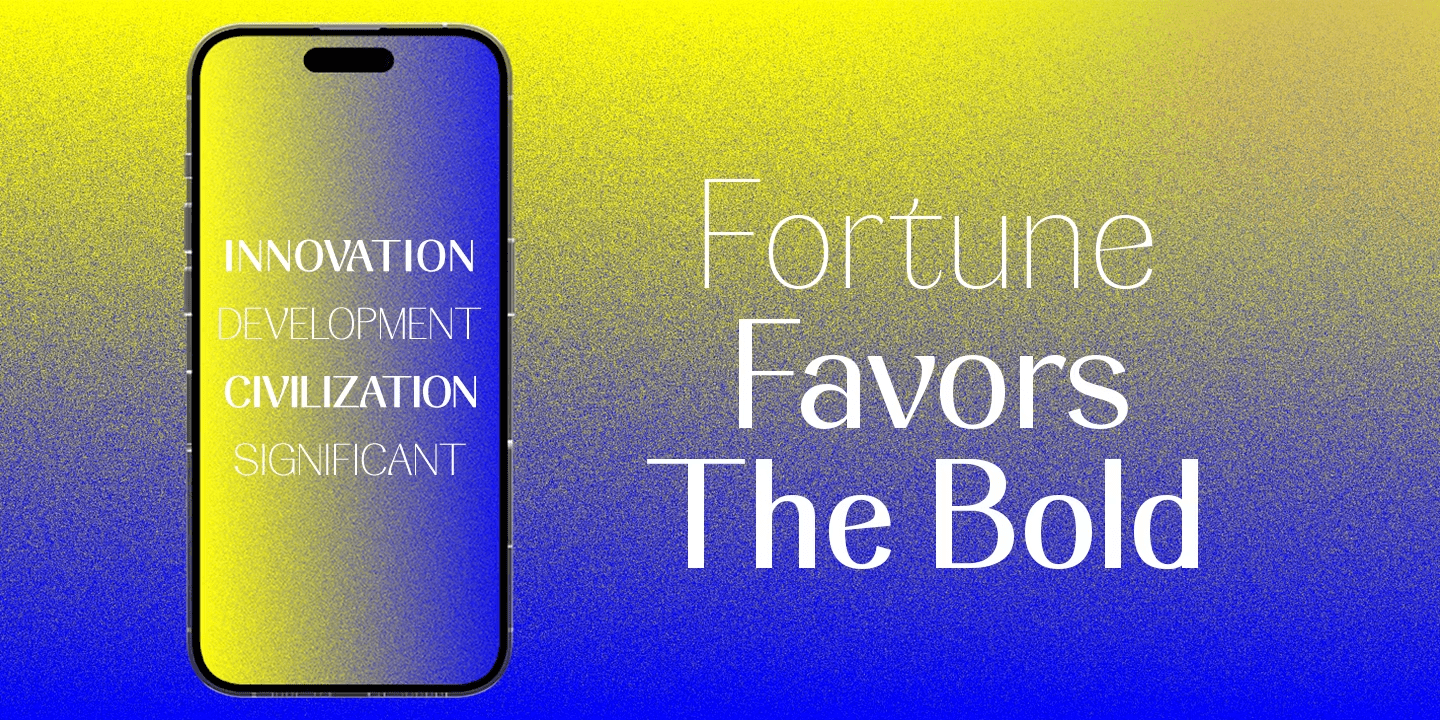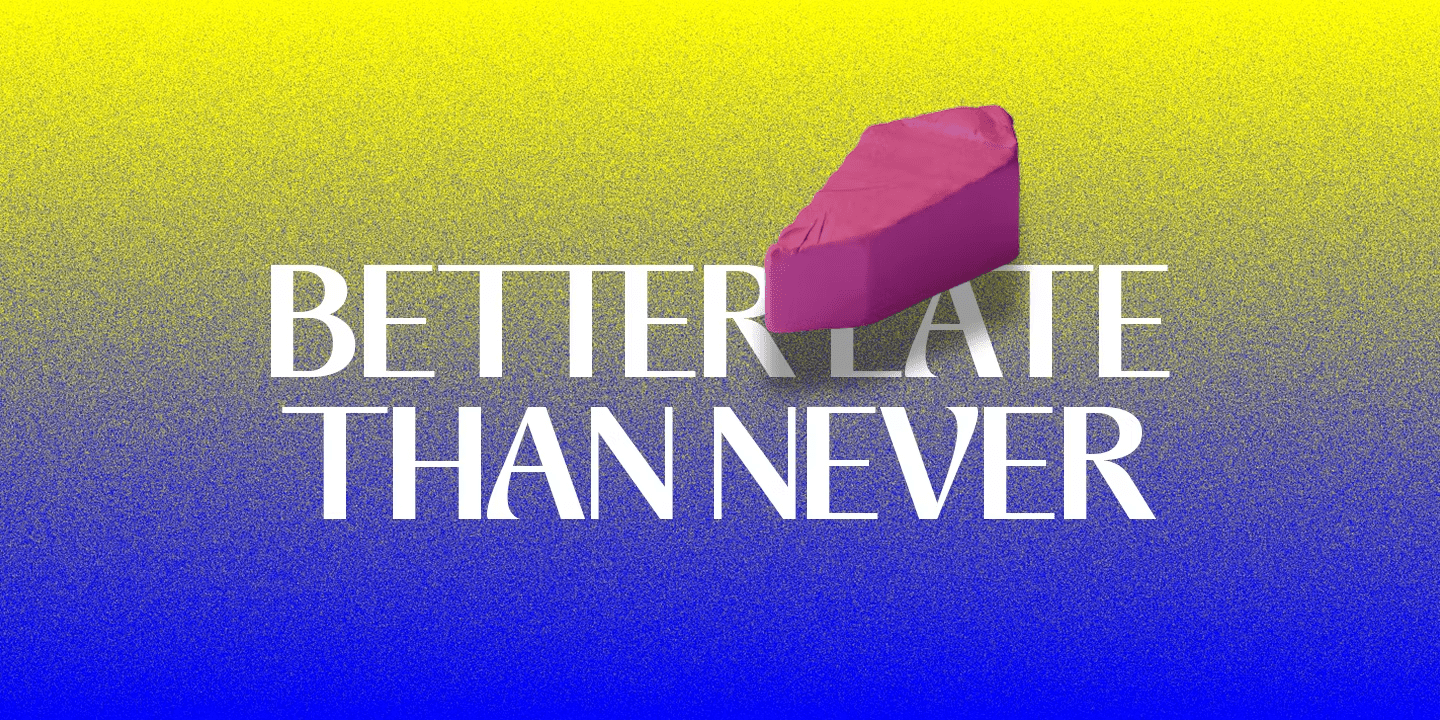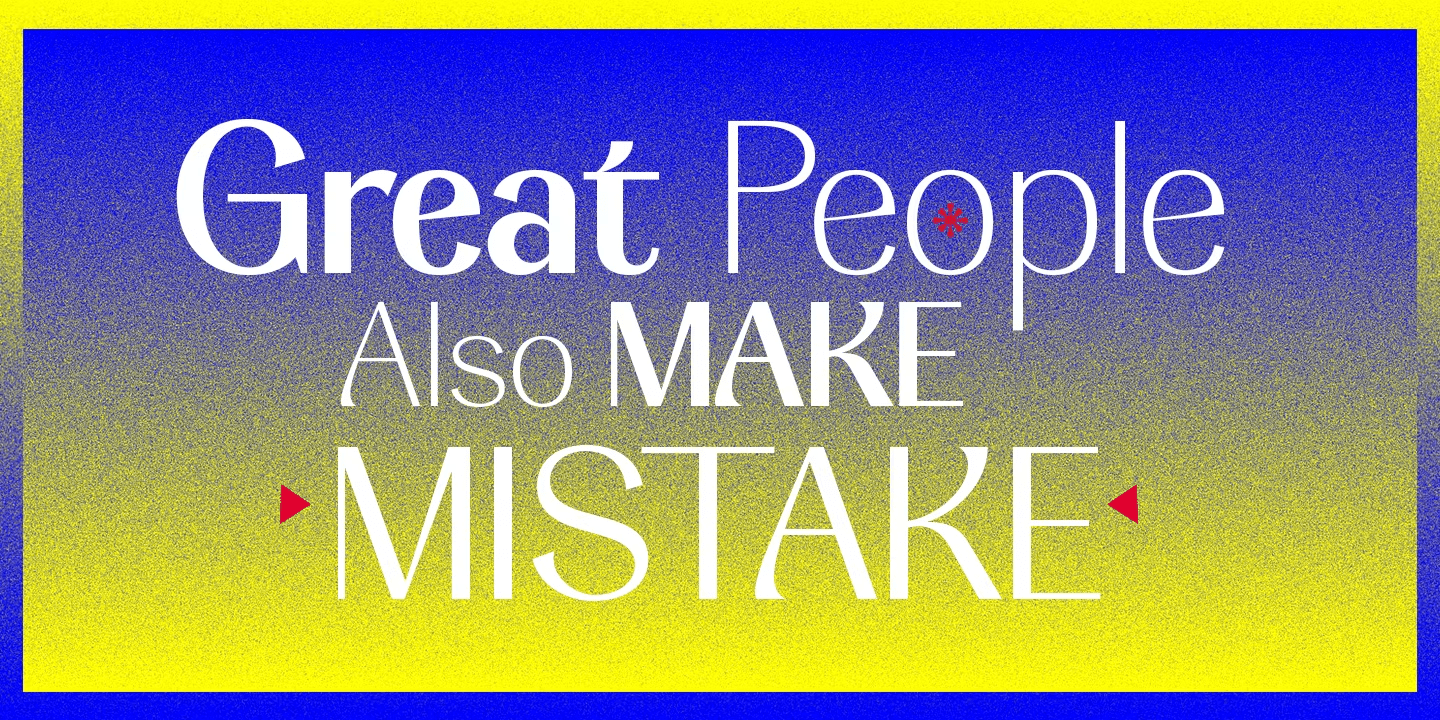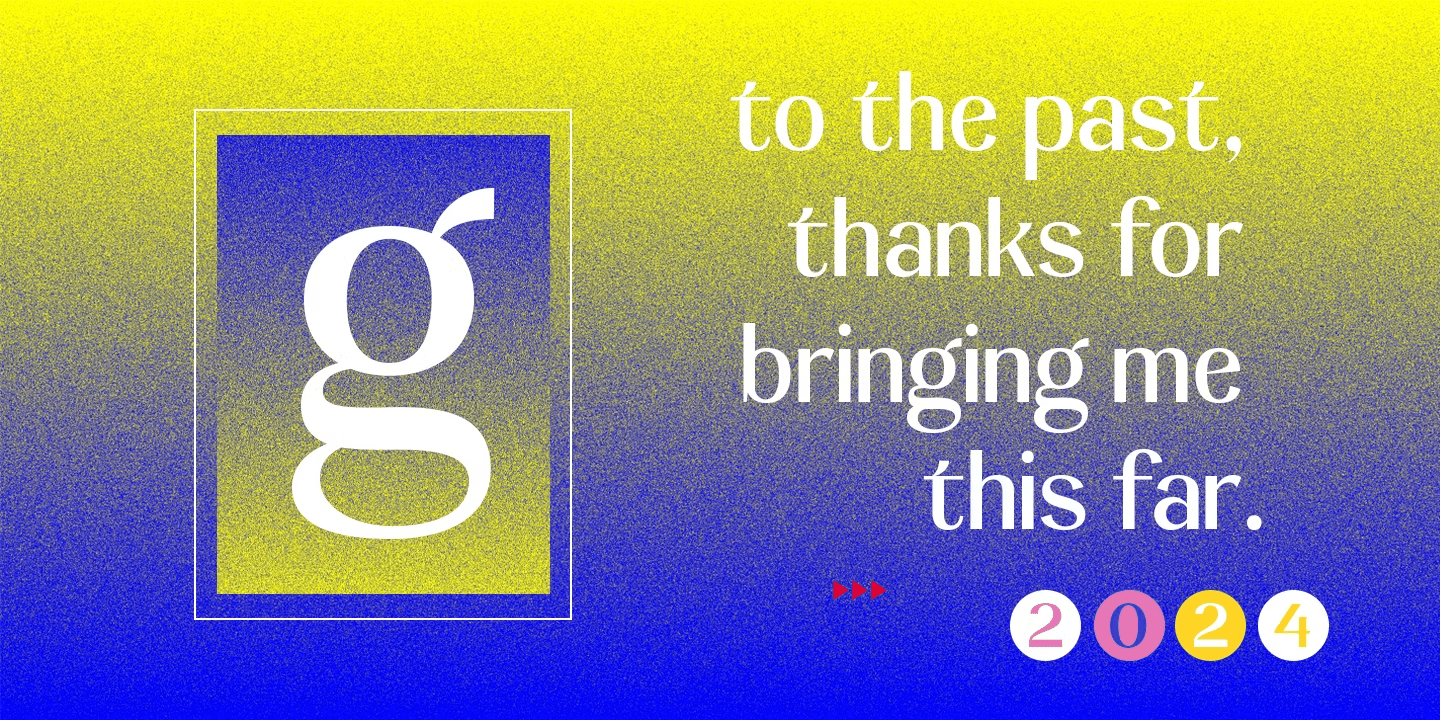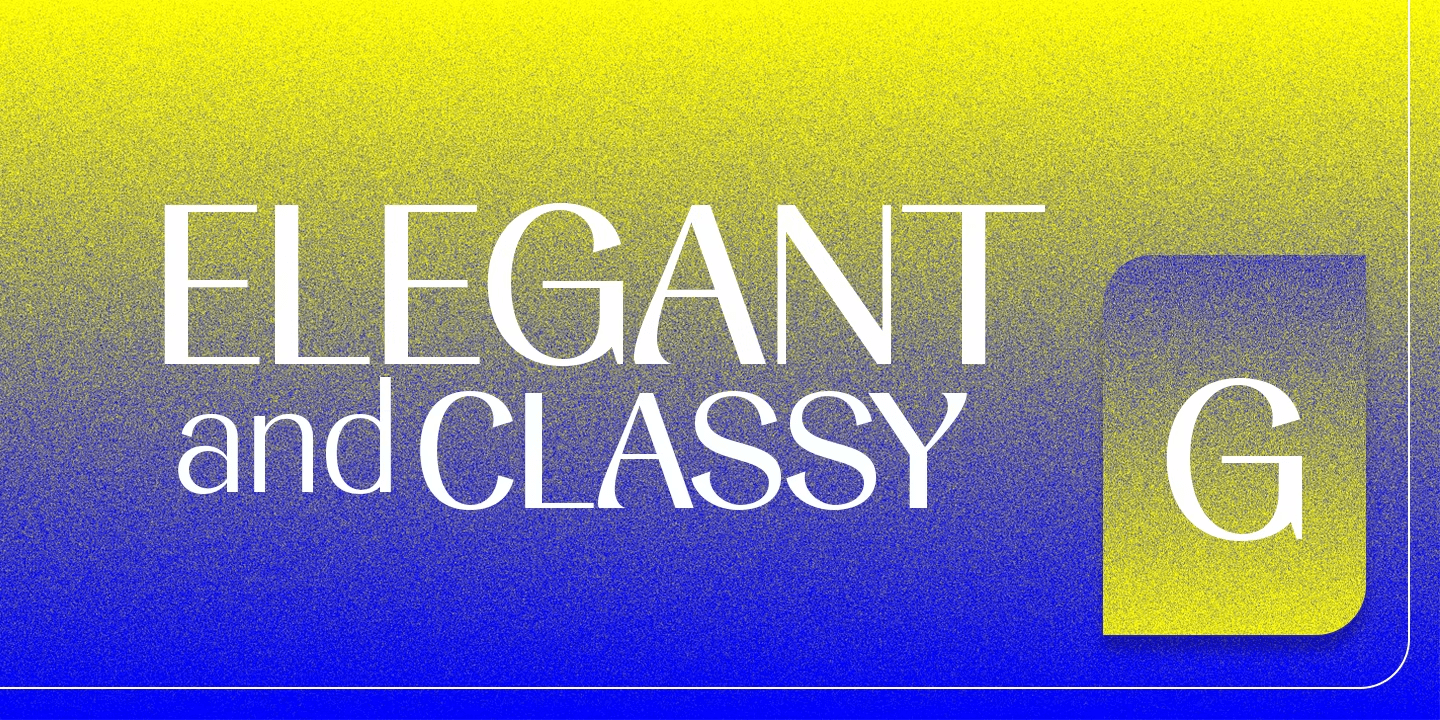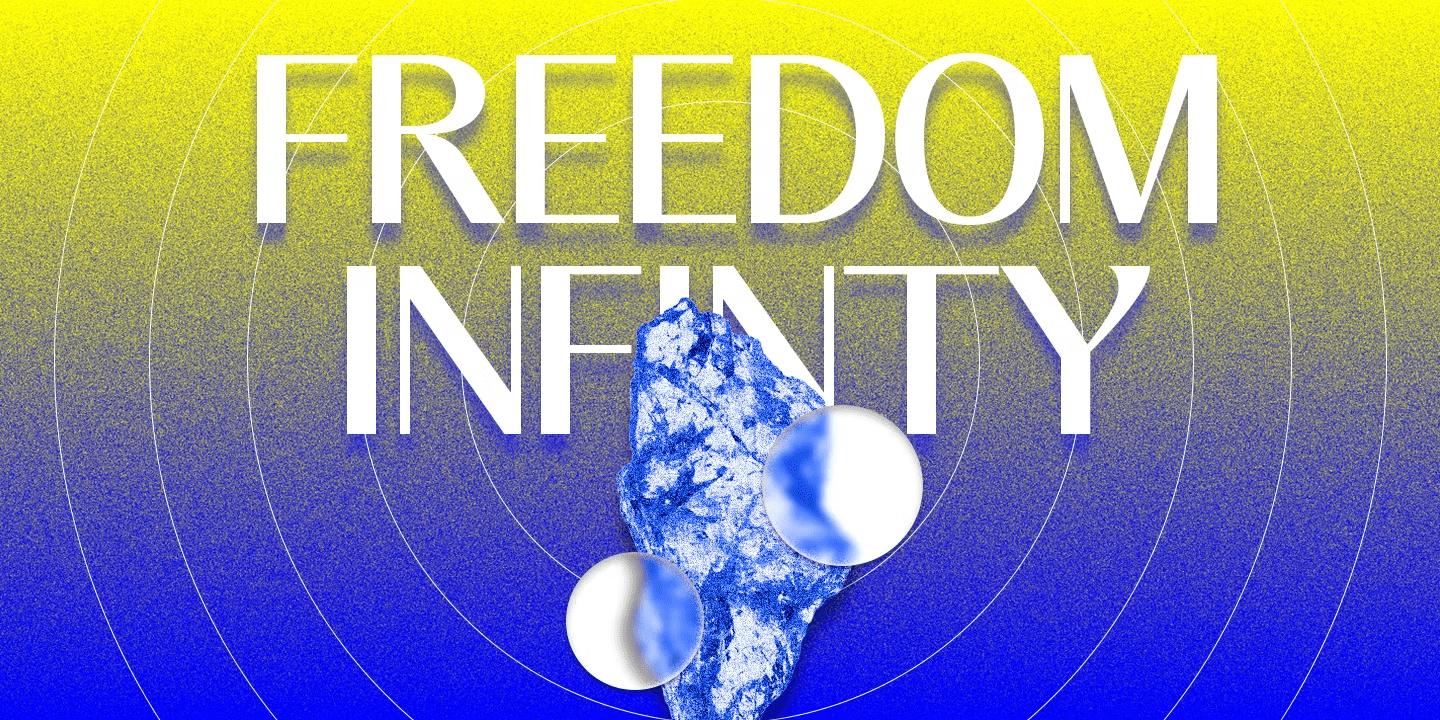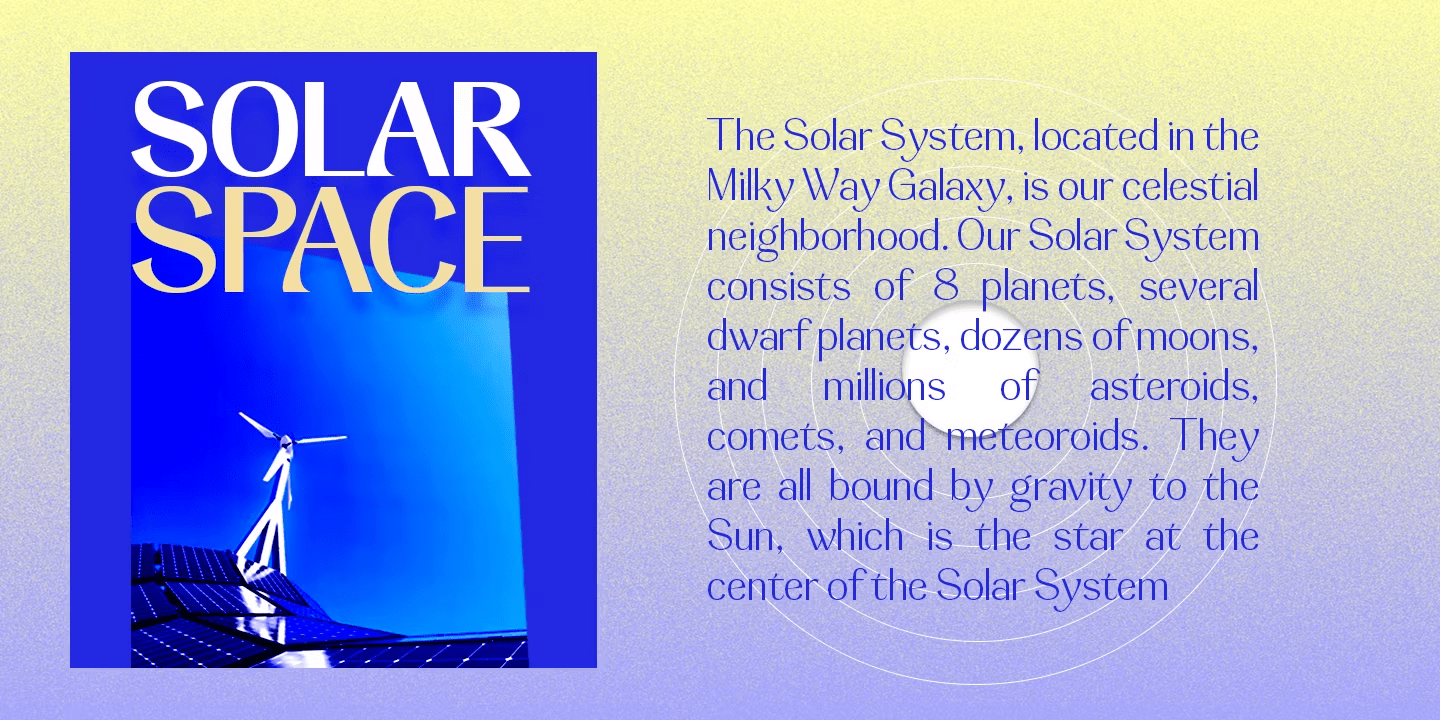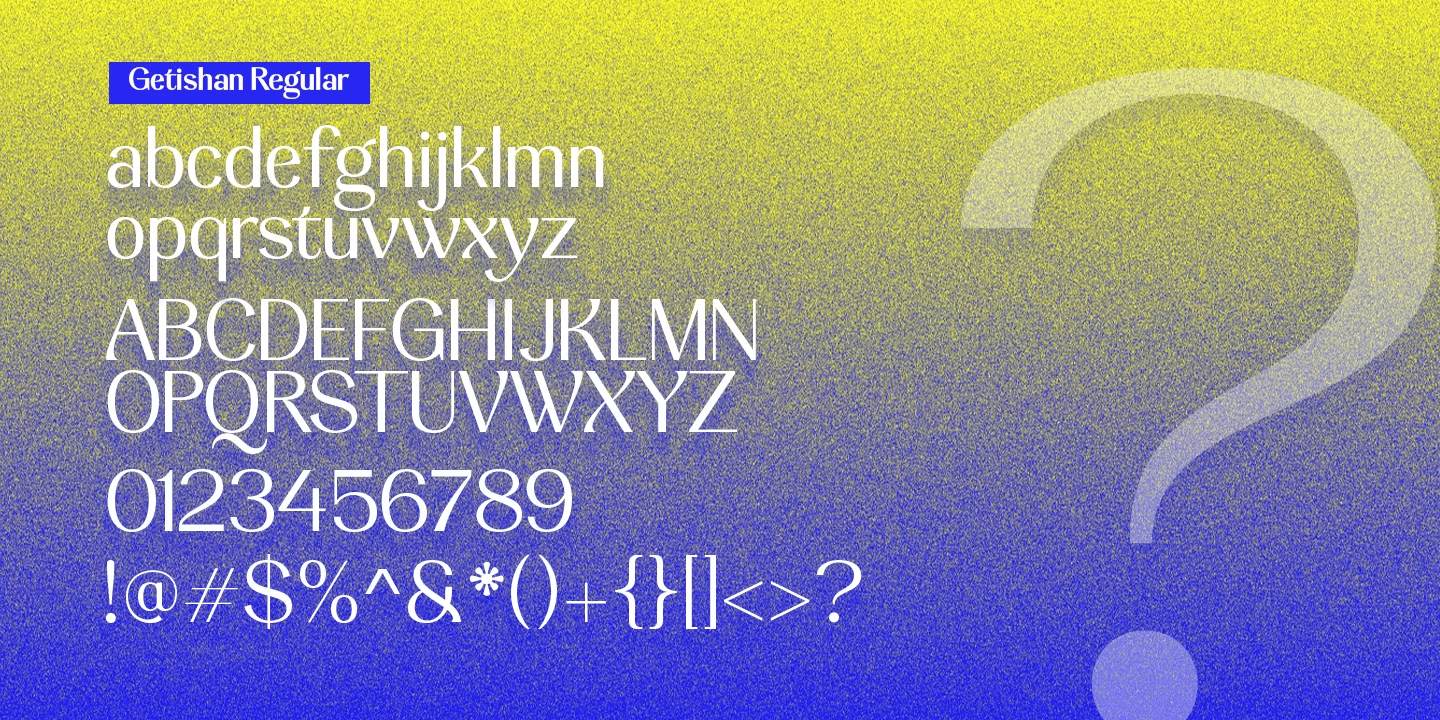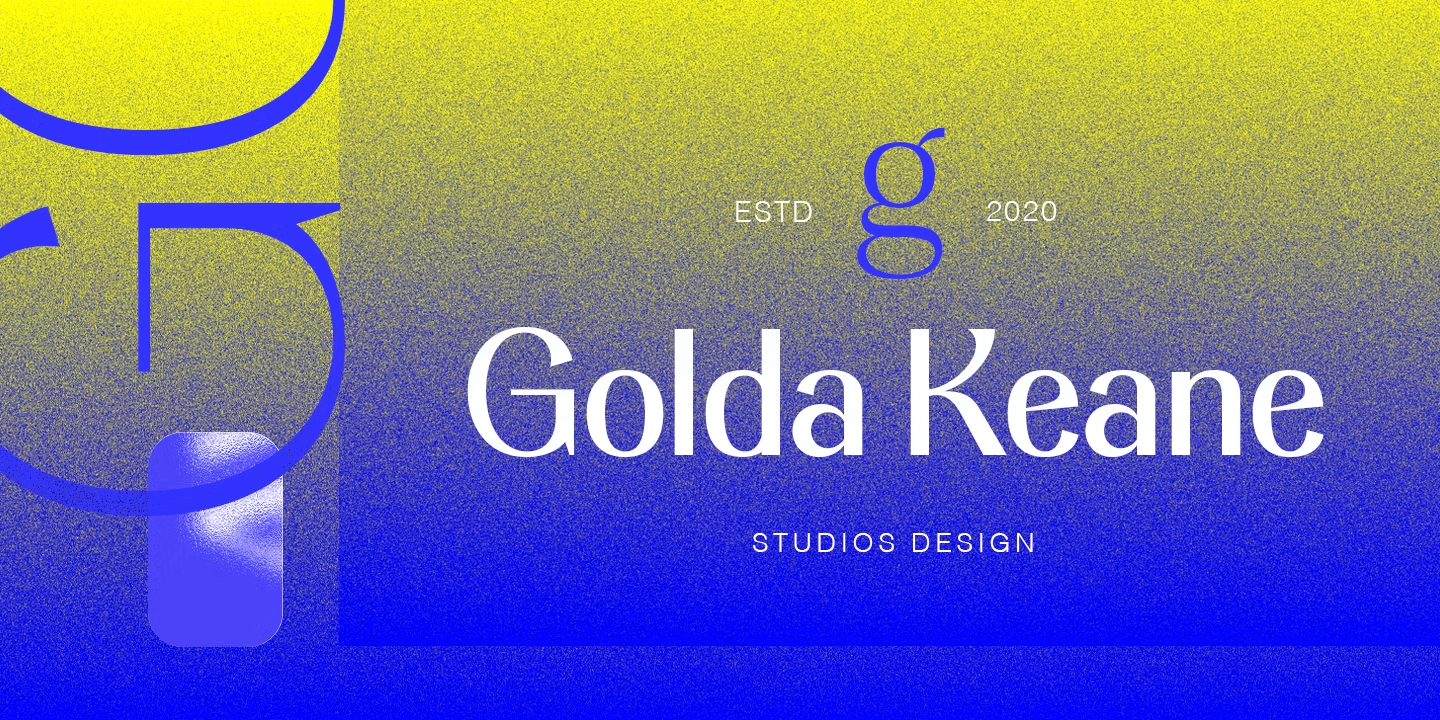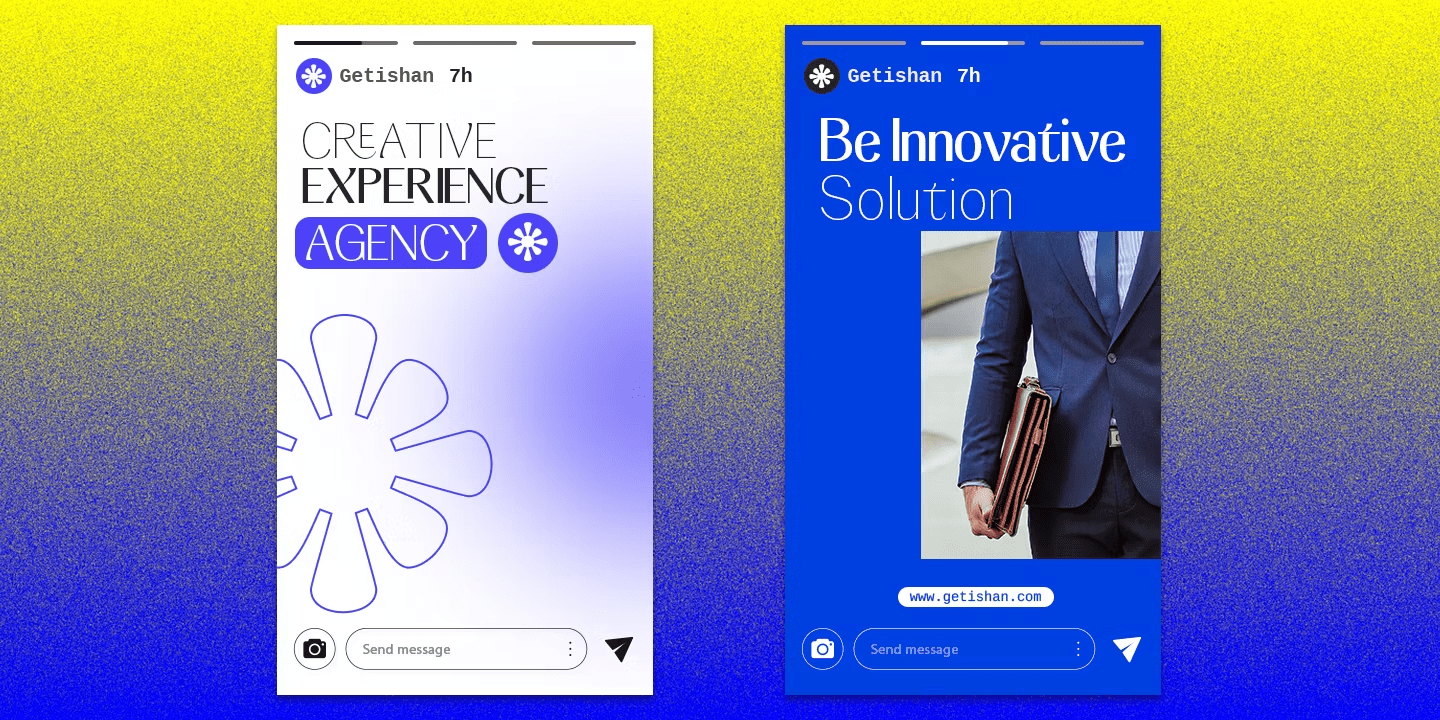
Getishan
The Getishan font expands its use by providing weights ranging from thin to bold, the character increases as the font weight increases. Meanwhile, its thinner weight reduces contrast and optical correction to create a warm, soft look
Getishan also comes in seven versions, to make it easier for designers to explore and perfect beautiful designs, revealing many visual nuances and hidden secrets.
Getishan excels in display settings such as headlines, titles, branding projects, Logo designs, packaging, magazine titles, advertisements, short or long texts.